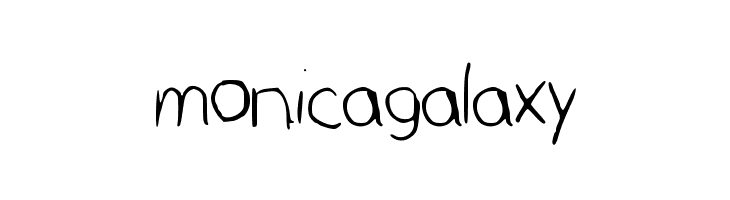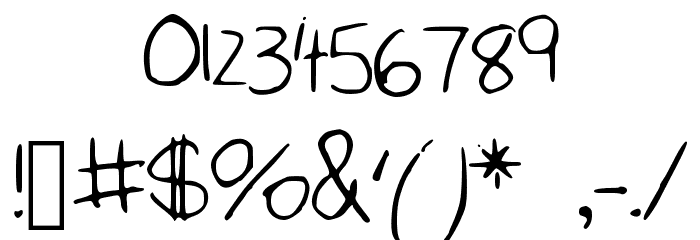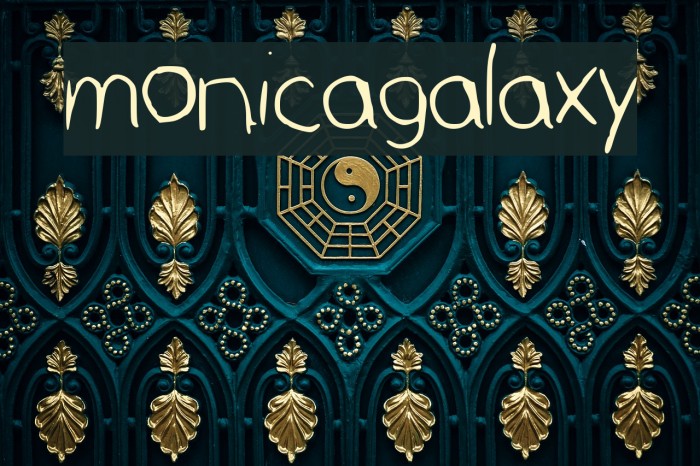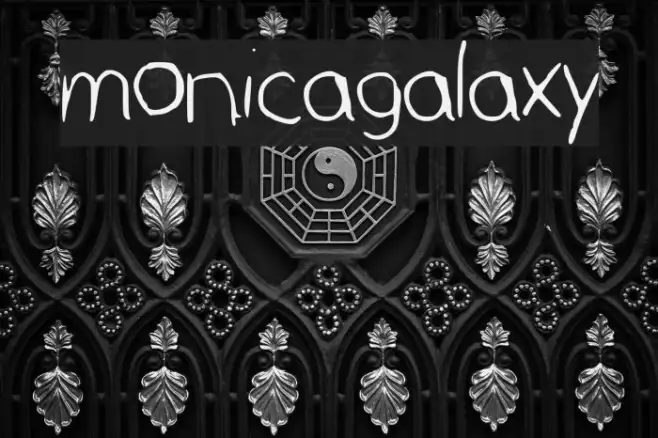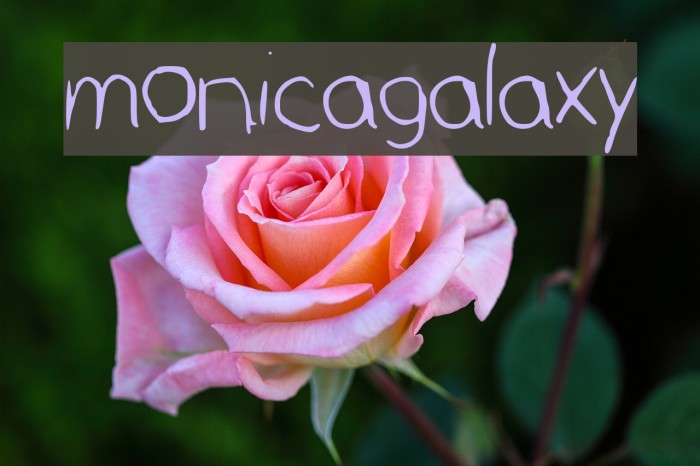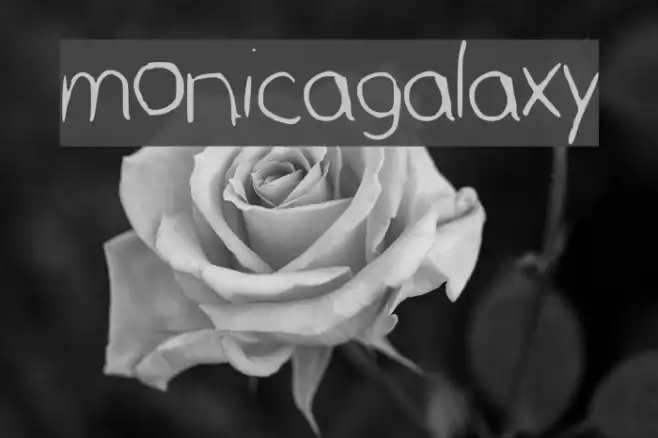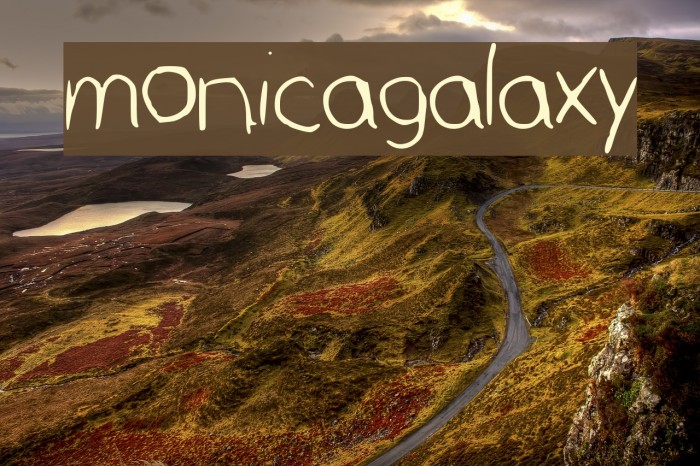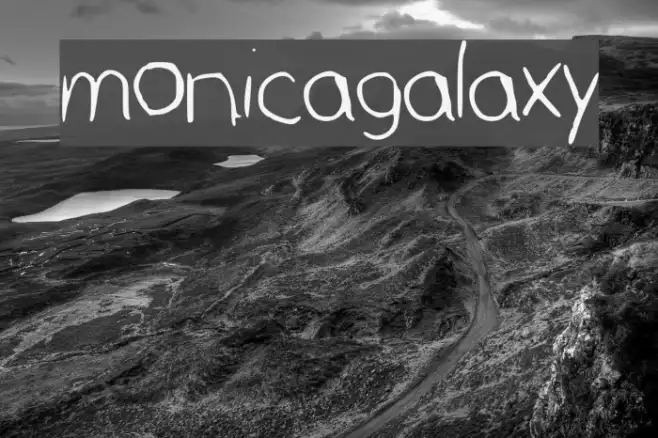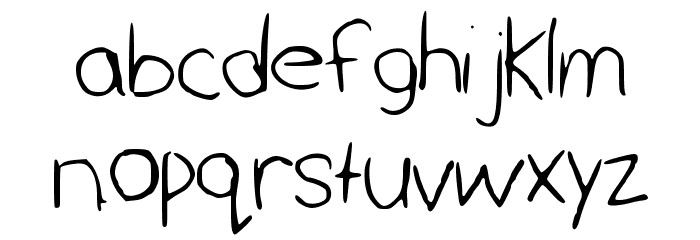
monicagalaxy Font
This font features a playful and informal handwritten style, characterized by its irregular strokes and casual appearance. The letters are slightly slanted, giving a dynamic and lively feel. The uppercase and lowercase letters are distinct, with the uppercase being more prominent and bold. The numbers and special characters maintain the same whimsical style, making them easily recognizable and consistent with the overall design. This font exudes a friendly and approachable vibe, perfect for projects that aim to convey warmth and creativity.
A playful, handwritten font with a casual and dynamic style.
• Proposed Projects: Ideal for children's books, greeting cards, informal invitations, and creative branding projects.
• Category: Handwritten
• Overall Style: Casual
• Use Case: Headlines, Informal text, Creative projects